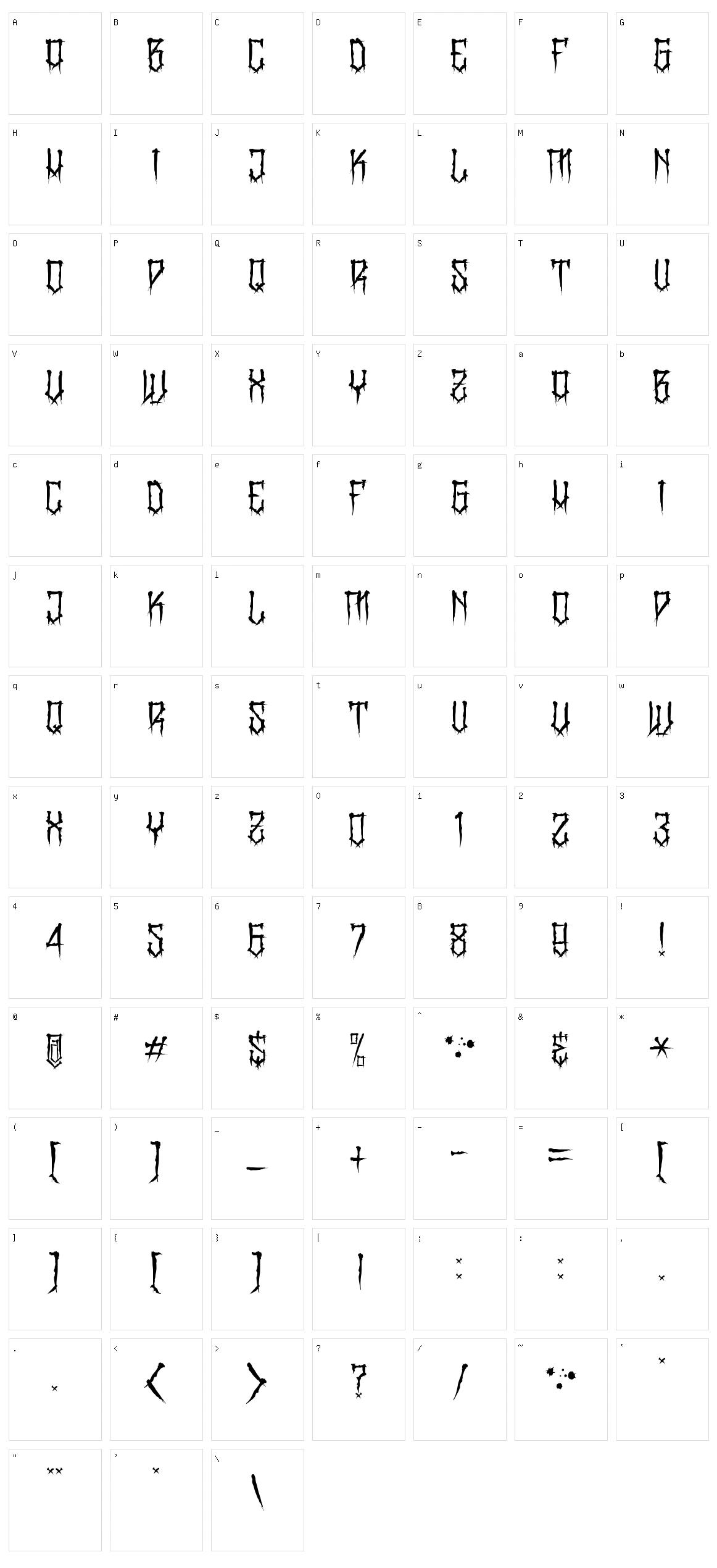
The free font BangLYCH - Revenge Horror is carefully designed by Aldi Dipshitdawg (Rinaldi Aziz), showcasing a thoughtful balance of creativity and usability and falls under the Horror font style. When you download the ZIP file, it contains only 1797.18 KB of font files, making it lightweight and quick to download. Please review the license details below to understand permitted usage and distribution rights. If license information is not available, we recommend using this font for personal projects only or contacting the author directly for commercial usage permissions.